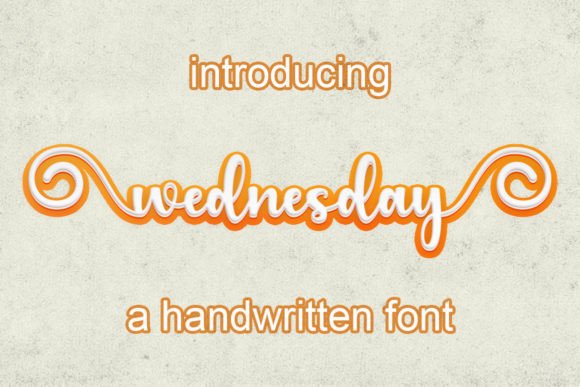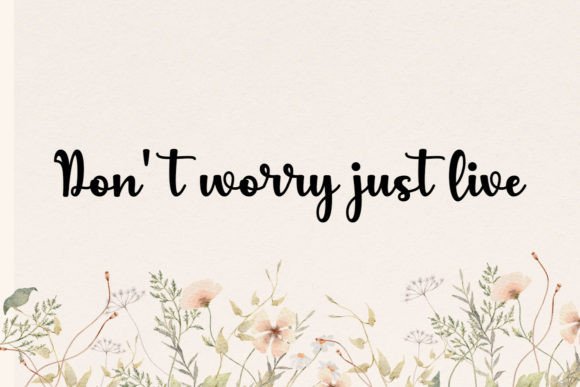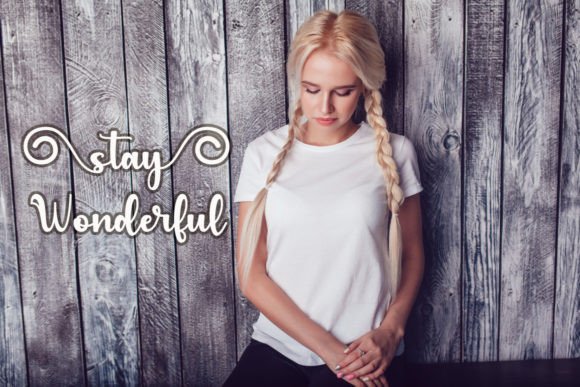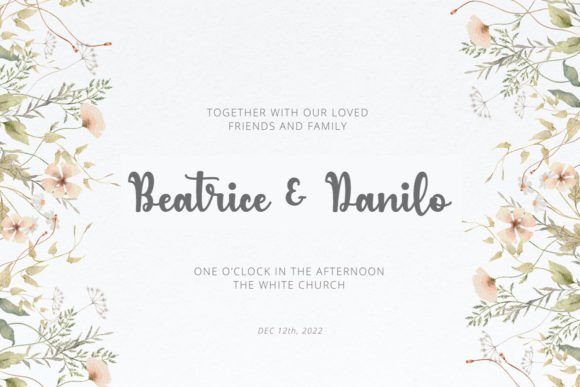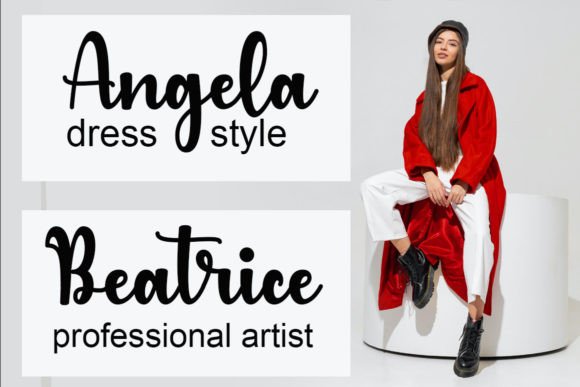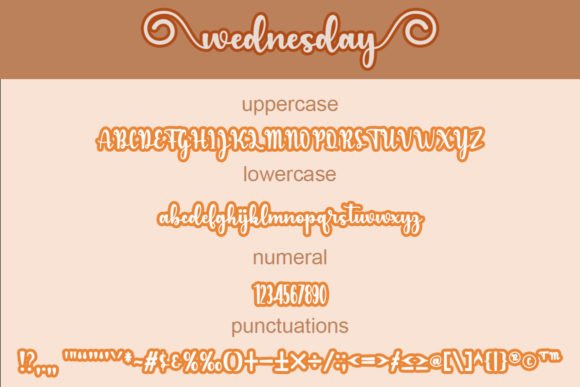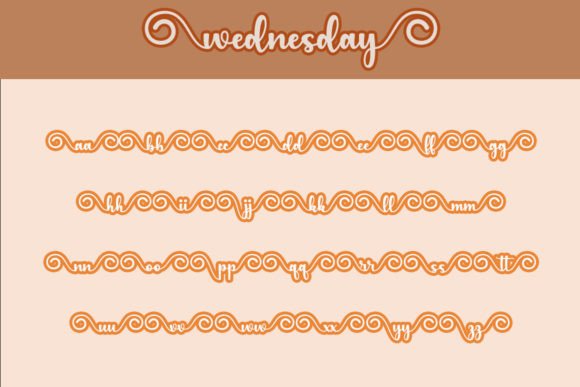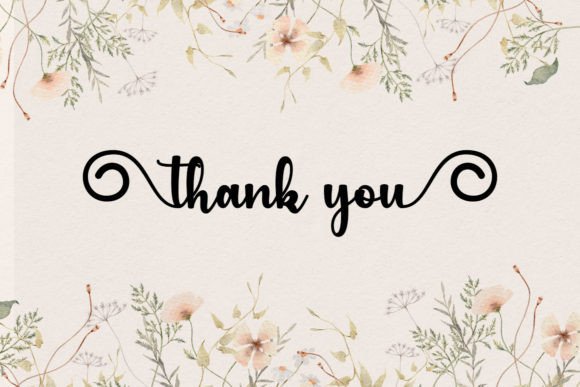
Wednesday Font
Enchanting Script Typeface for Stylish and Versatile Designs
If you’re seeking a font that feels both elegant and expressive, the enchanting script typeface Wednesday is a perfect choice. This graceful font blends a handwritten style with a chic, modern flair — ideal for everything from logos to lifestyle products.
Whether you’re working on digital content, print materials, or fashion branding, Wednesday delivers the sophistication your design needs.
Meet Wednesday: Stylish, Graceful, and Highly Adaptable
Wednesday is a beautifully crafted script font that adds charm and personality to any layout. Its smooth, flowing curves and balanced forms make it look handwritten yet polished. Because of its adaptability, this enchanting script typeface works across many styles and industries.
You can use Wednesday for:
• Fashion logos and brand kits
• Inspirational quote designs
• Clothing tags, tote bags, and accessories
• Wedding stationery and invitations
• Website banners and blog titles
• Business cards and product labels
Its romantic elegance ensures that your message stands out while maintaining a professional tone.
Additionally, the font is PUA encoded, so you’ll have instant access to all of its alternate characters, glyphs, and swashes without needing complex software. This saves time and lets you dive straight into designing.
Why Designers Choose Wednesday
From branding agencies to Etsy shop owners, many designers love working with Wednesday. Here’s why it remains a popular pick:
• Elegant script style with a handcrafted touch
• Excellent legibility in both small and large sizes
• Full PUA encoding for easy access to special characters
• Great for both digital and print applications
With this enchanting script typeface, you can easily add sophistication and character to every project you tackle.
Ideal for Creatives, Boutiques, and Event Designers
Wednesday is more than just a pretty font — it’s a valuable asset for creative professionals and small business owners. You’ll find it especially helpful when designing:
• Branding for lifestyle and fashion labels
• Printables, journals, and planners
• Elegant social media graphics
• Personalized gift items and handmade product tags
• Wedding, birthday, or seasonal event materials
Its timeless aesthetic makes it an excellent match for anyone aiming to produce visually captivating and emotionally engaging designs.
Wednesday is a true standout in the world of script fonts. With its soft curves and elegant presence, it captures attention while retaining a feeling of warmth and authenticity. This enchanting script typeface is perfect for creators who want beauty, functionality, and emotion in one powerful font.